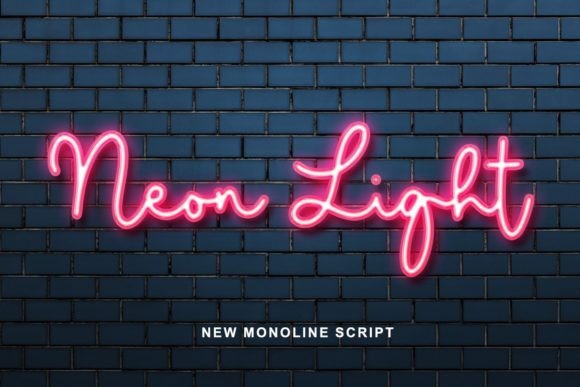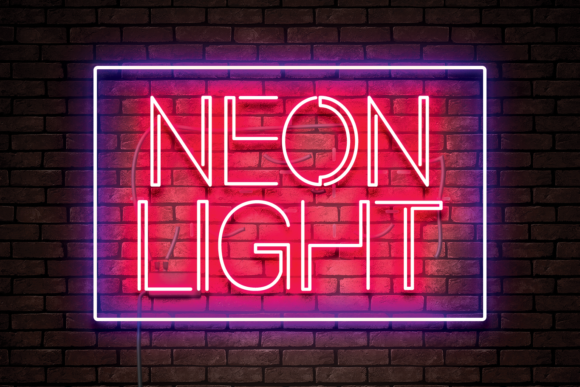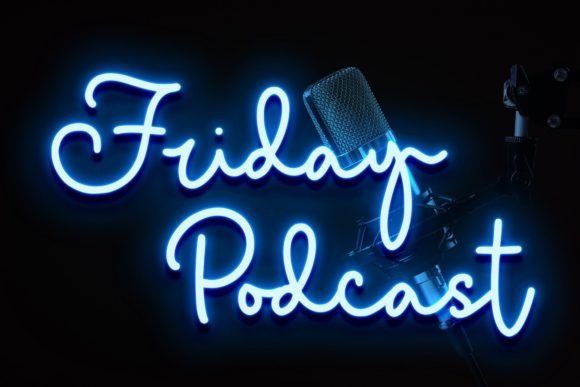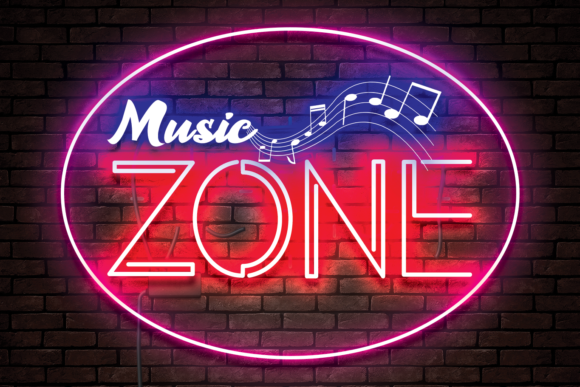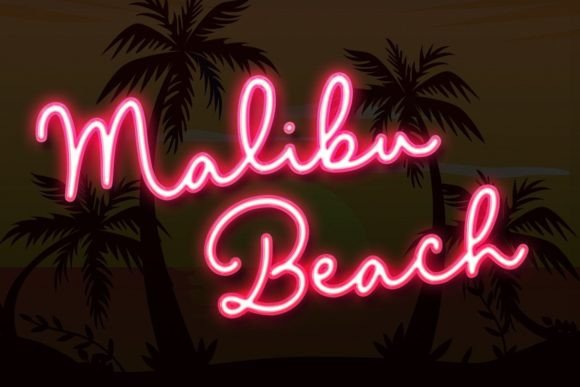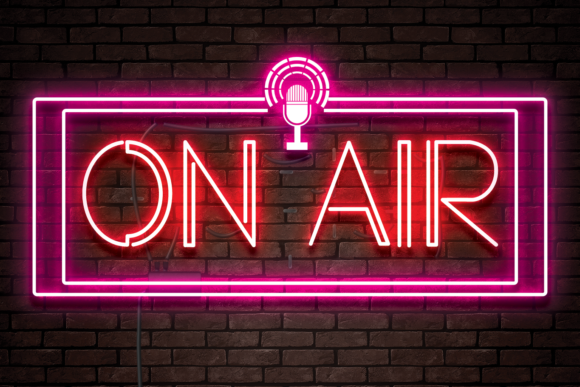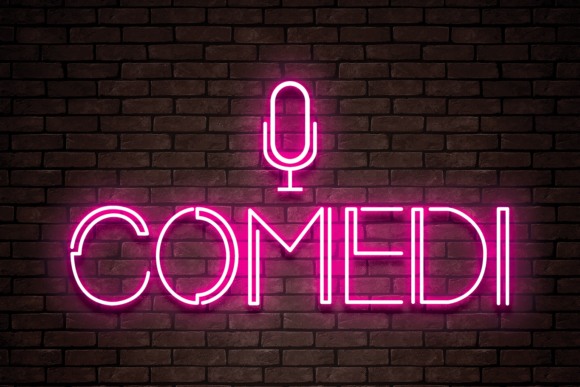
Neon Light Font
About the Neon Light Font
Let us introduce you to Neon Light Font, where timeless design meets modern craftsmanship. Neon Light is a playful and stylish font with a youthful spirit. Is suitable for both professional-looking projects such as branding designs, labels, websites, and business cards as well as casual designs like packaging, posters, flyers, quotes, social media posts, invitations, special occasions cards, etc
Neon Light’s bold, playful strokes shine in headlines, short-form text, and branding applications where a youthful energy is desired. It works exceptionally well for posters, packaging, and social media graphics. However, its highly stylized nature makes it less suitable for body text or UI elements requiring high readability. Avoid using it for lengthy paragraphs or applications where clear communication is paramount.
Consider pairing Neon Light with a clean sans-serif like Open Sans for a balanced contrast, or a more geometric sans-serif like Futura for a modern feel. For a touch of sophistication, a classic serif like Garamond can add visual weight and elegance, grounding the playful nature of Neon Light.
The font’s overall personality is best described as energetic and optimistic. It suits brands targeting a young, vibrant audience and projects that aim for a fun, memorable aesthetic.